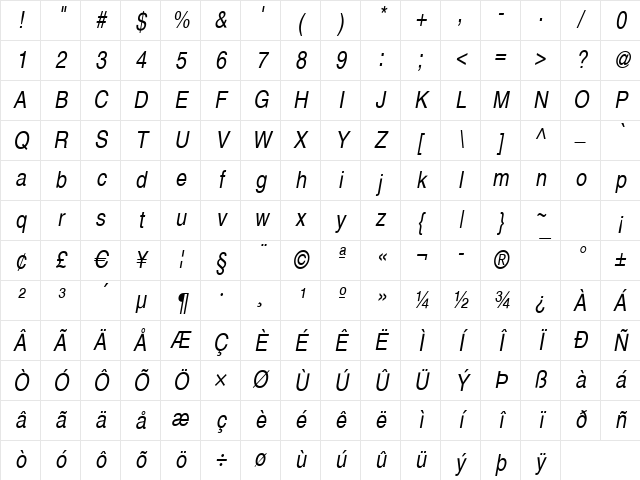
Sans-PS-Cd Italic Free Font
Sans-PS-Cd Italic
Complete Sans-PS-Cd Italic glyph index. Displaying only characters natively supported by Sans-PS-Cd Italic font.
Design Context for Sans-PS-Cd
Sans-PS-Cd is a composed and adaptable typeface that performs quietly and consistently across a wide range of design contexts. The slanted form adds forward momentum and visual energy.
Pro Tip: Use Sans-PS-Cd for emphasis, pull quotes, and subheadings where its slanted energy can add rhythm to the layout.